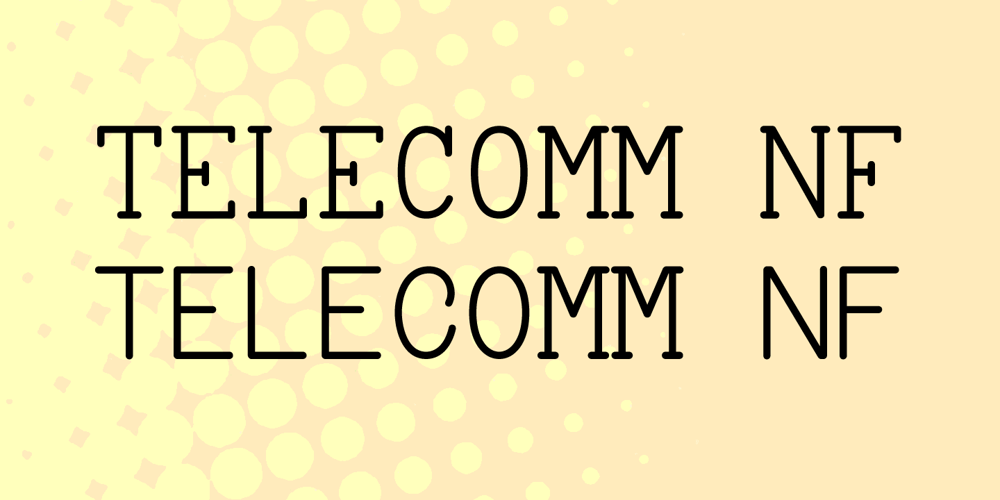
Telecomm NF Font Family was designed by Nick Curtis and published by Nick’s Fonts. Telecomm NF contains 1 styles and family package options. This font is actually two different fonts. The uppercase mimics the typeface used once upon a time in Teletypes, and the lowercase is patterned after the face used during the first half of the twentieth century by Western Union for their telegrams. Both flavors of this font feature the 1252 Latin, 1250 Central European, 1254 Turkish and 1257 Baltic character sets.